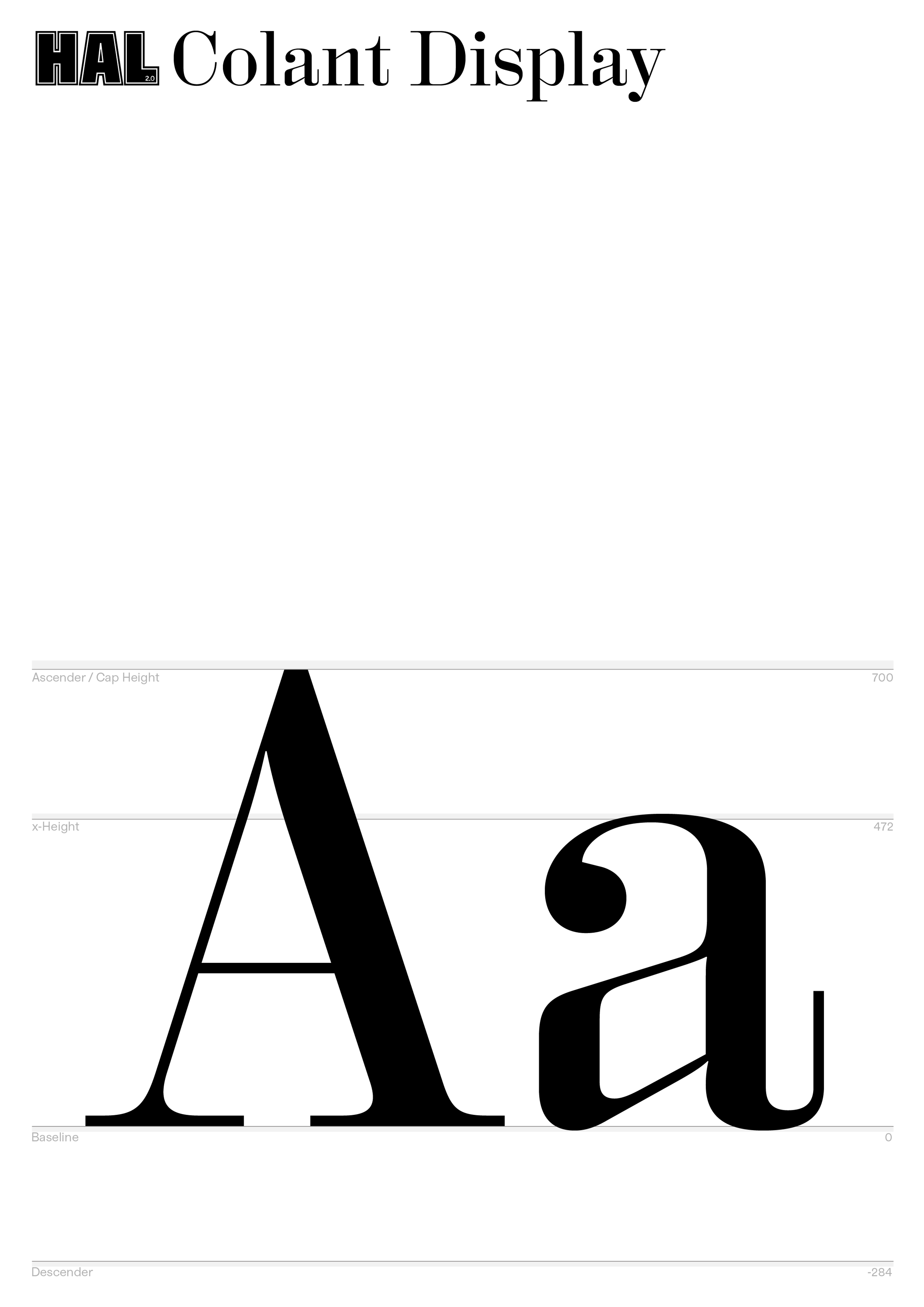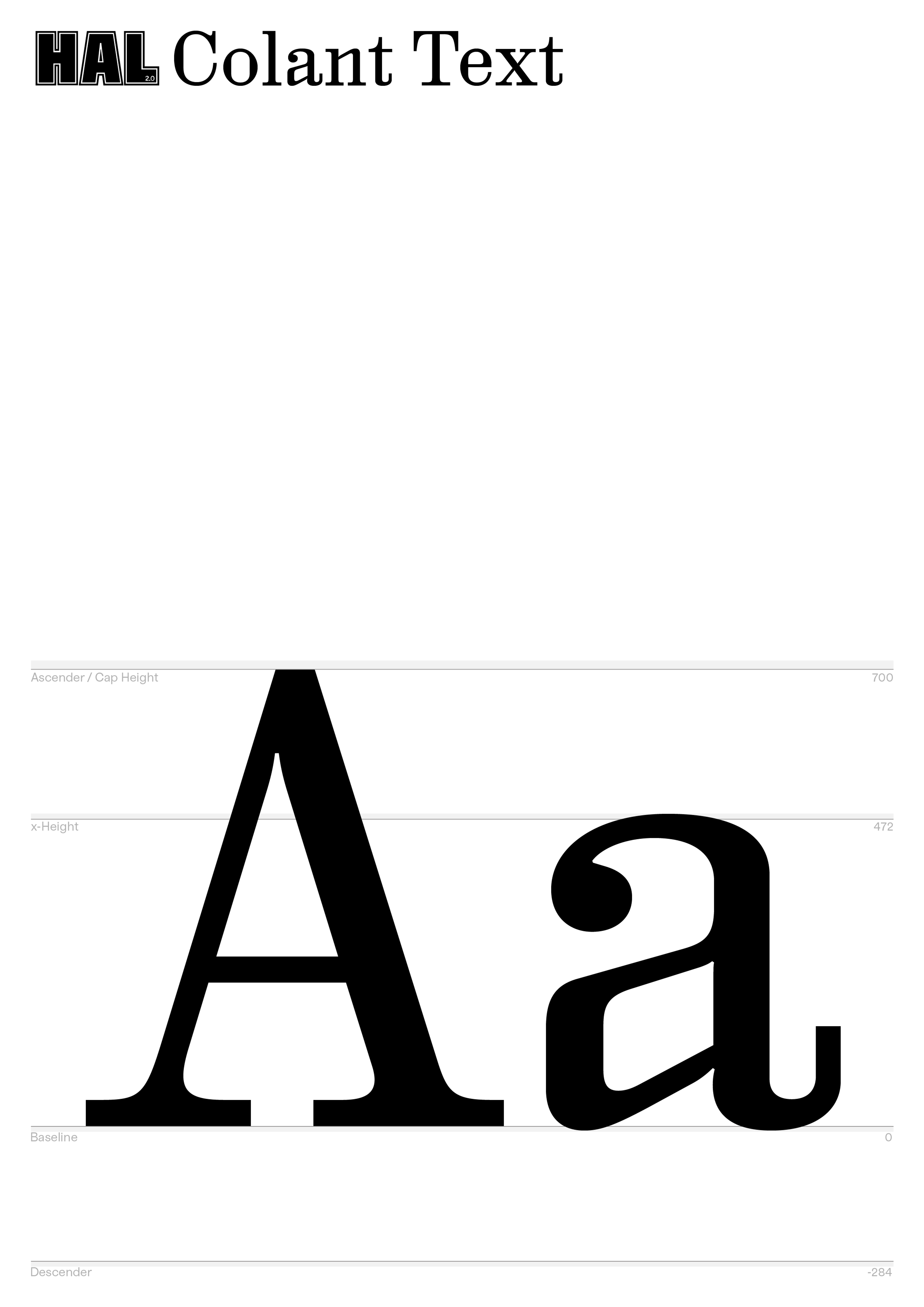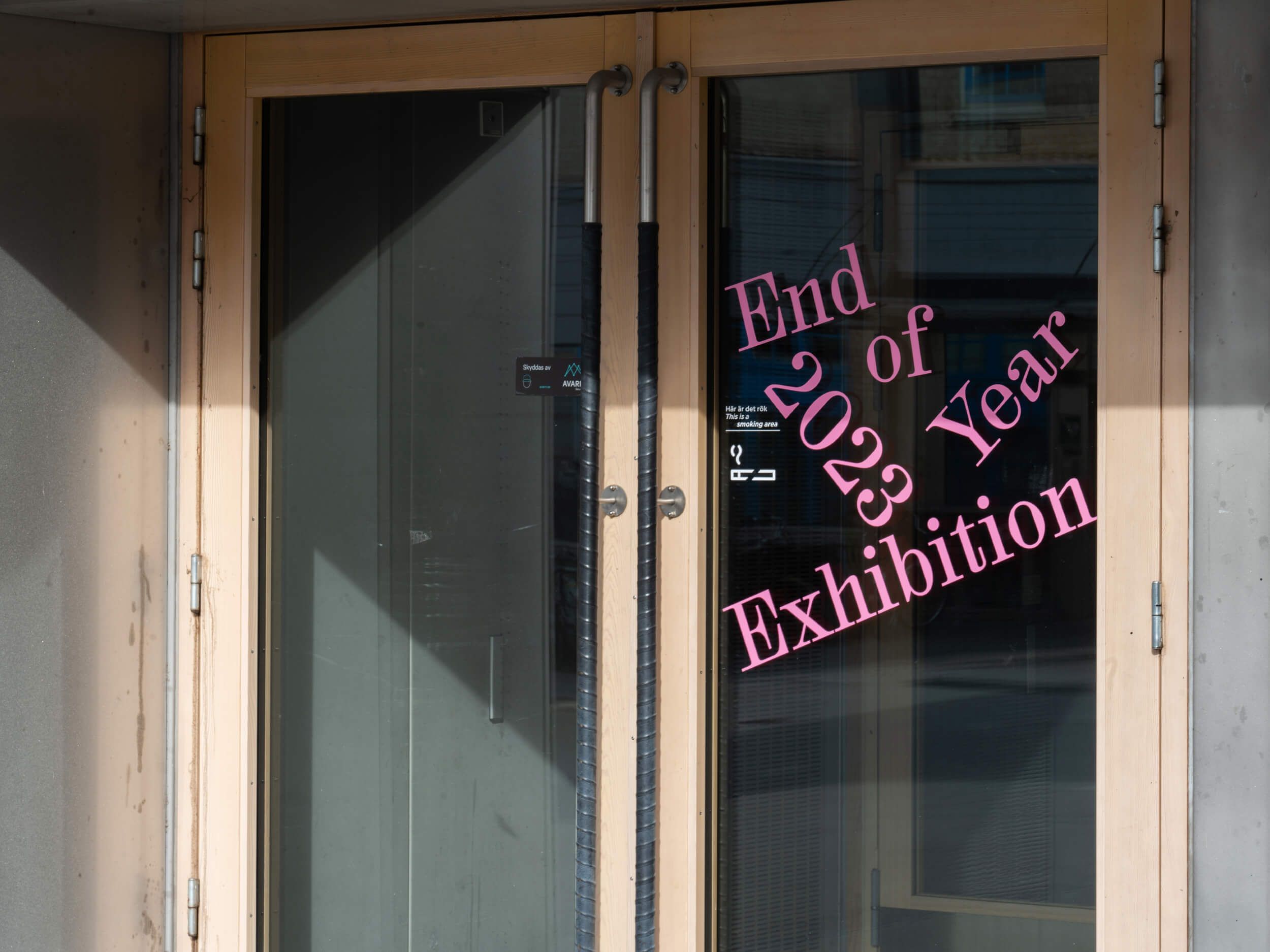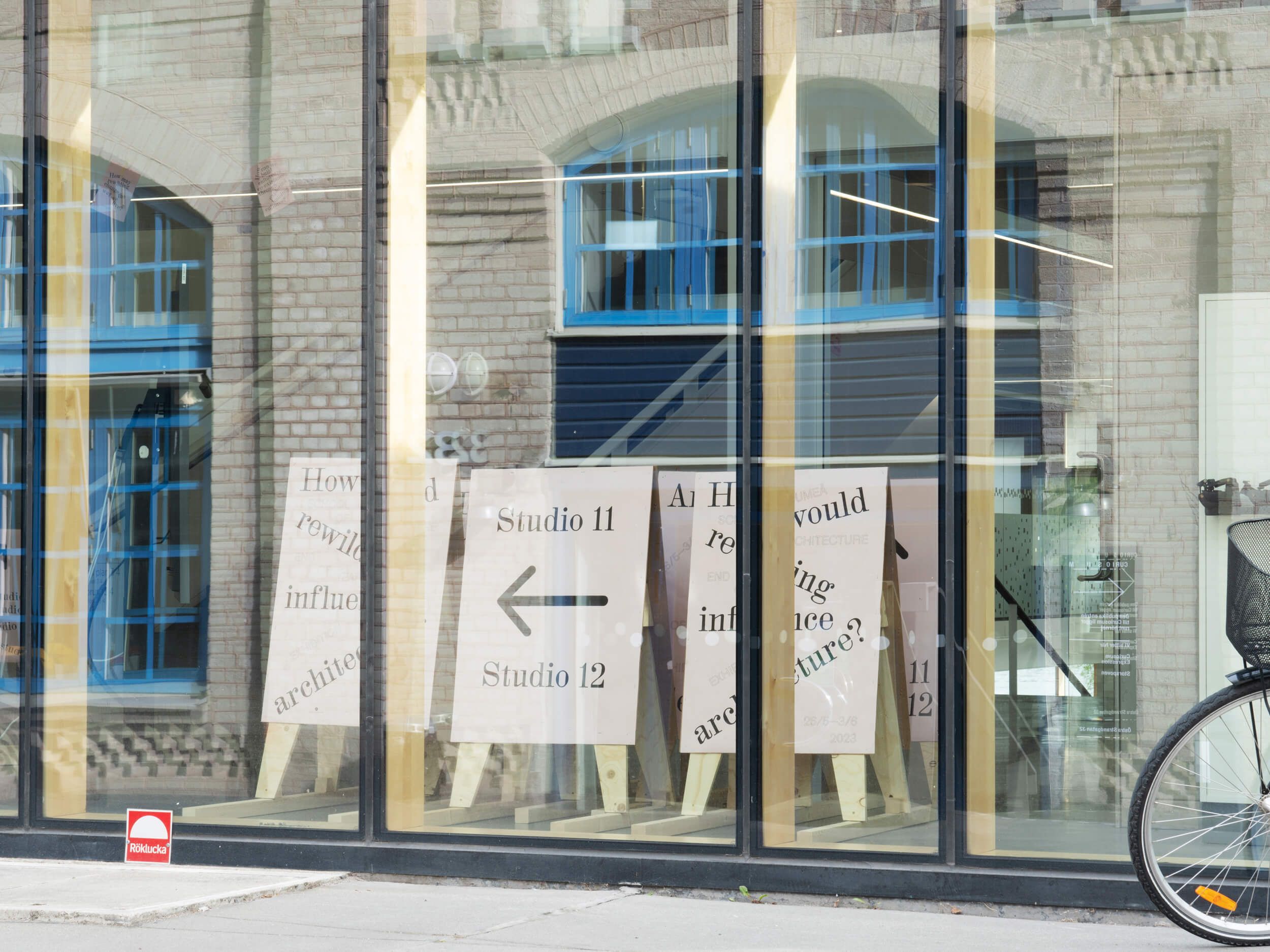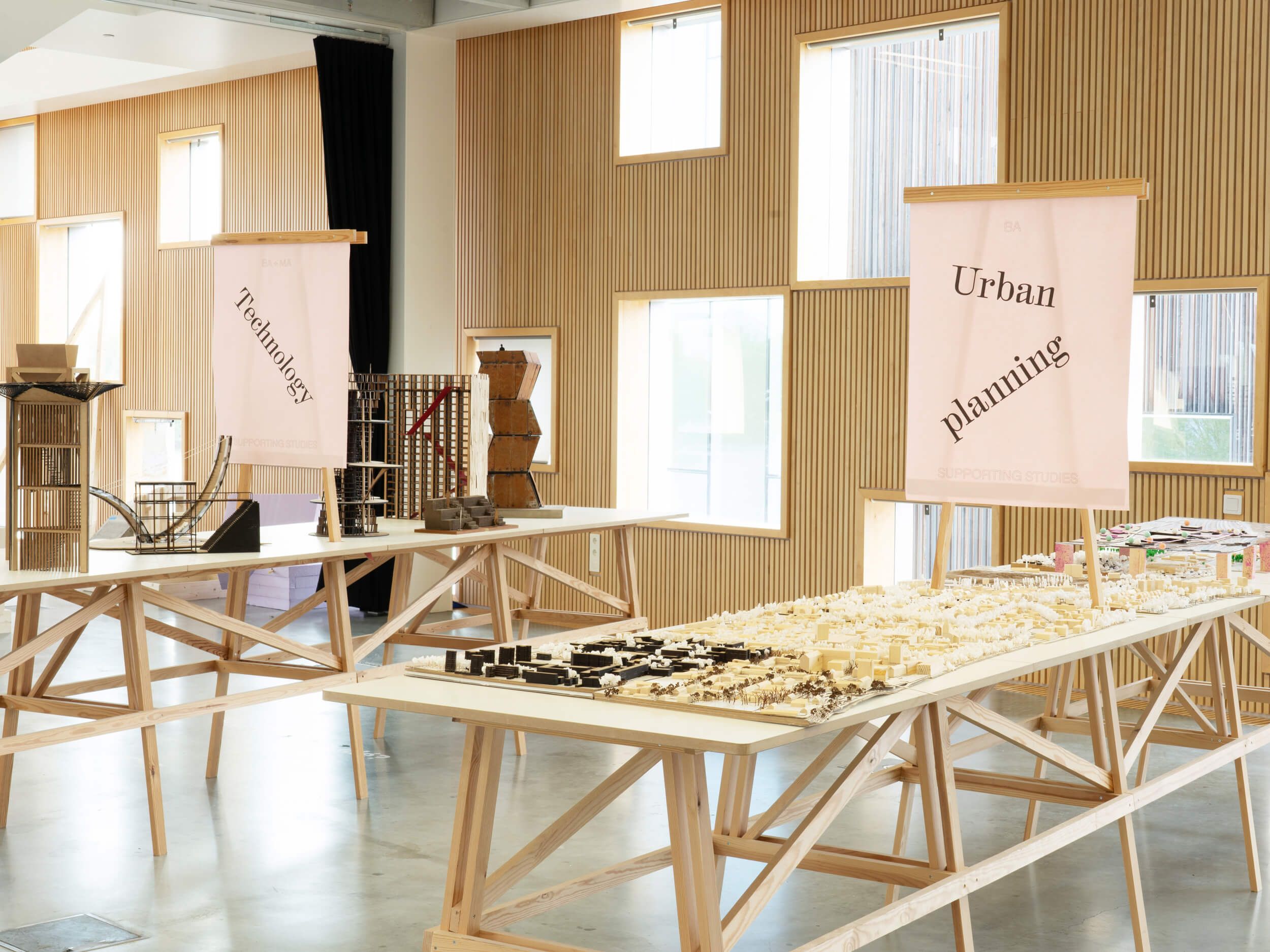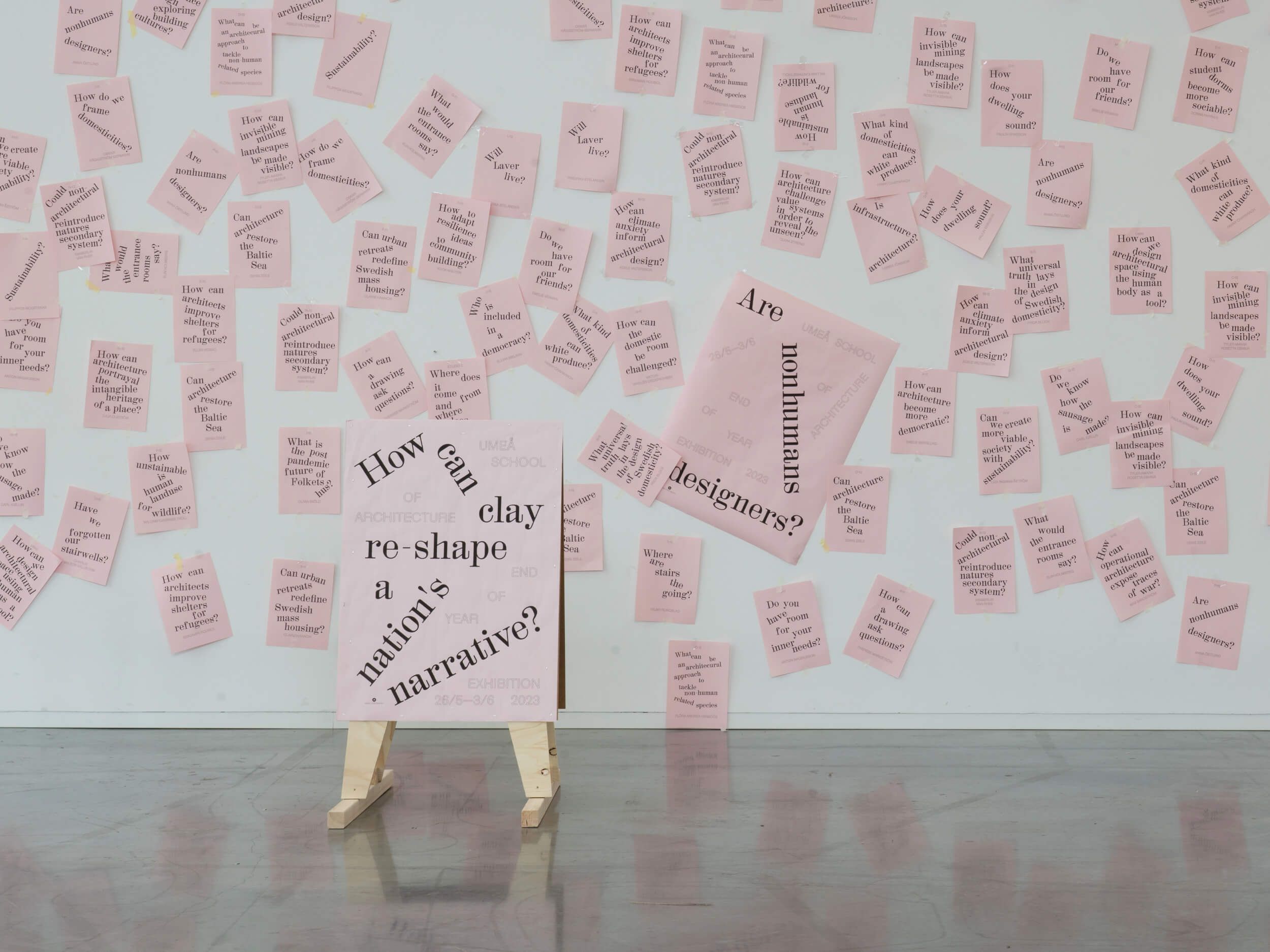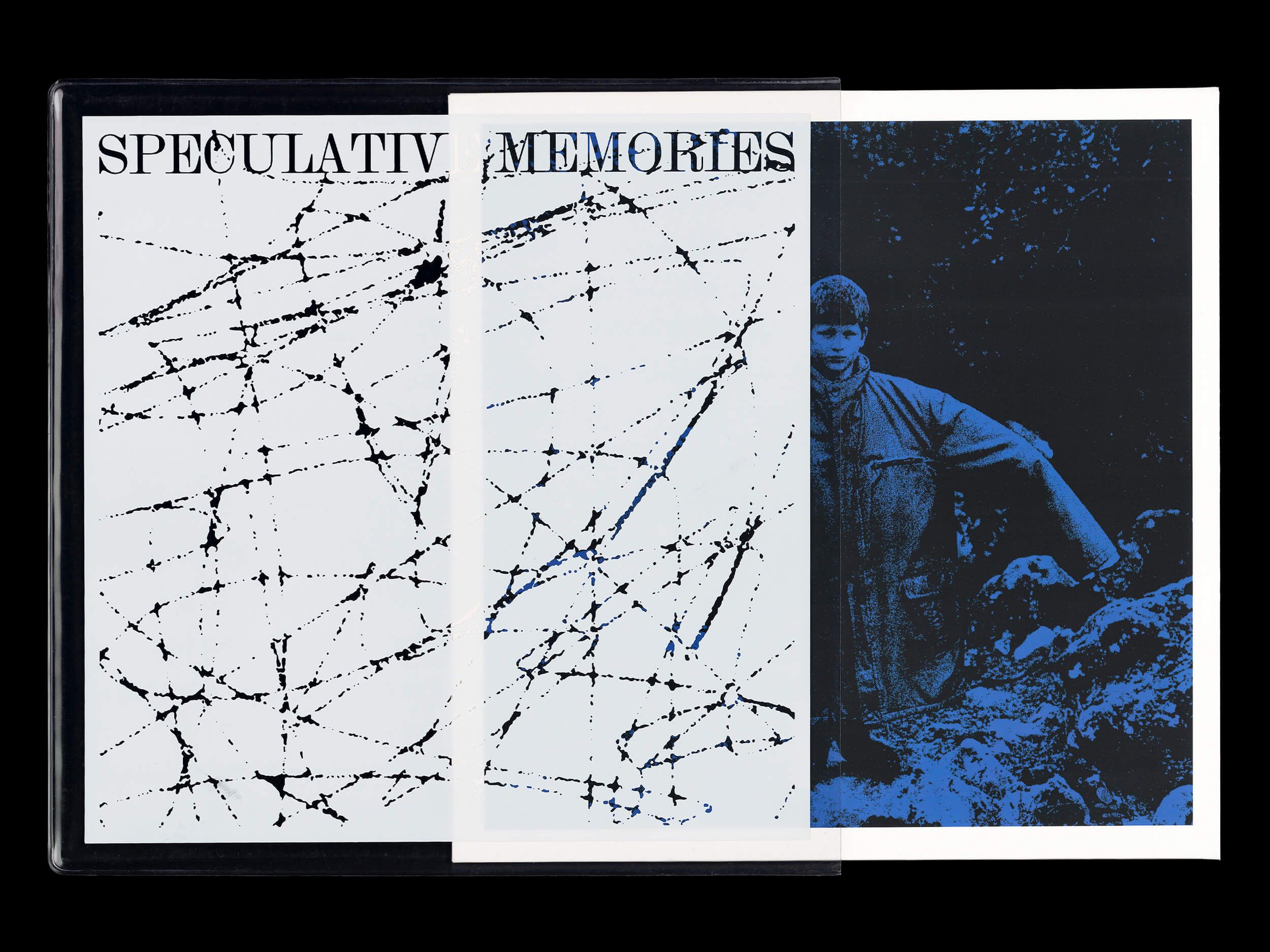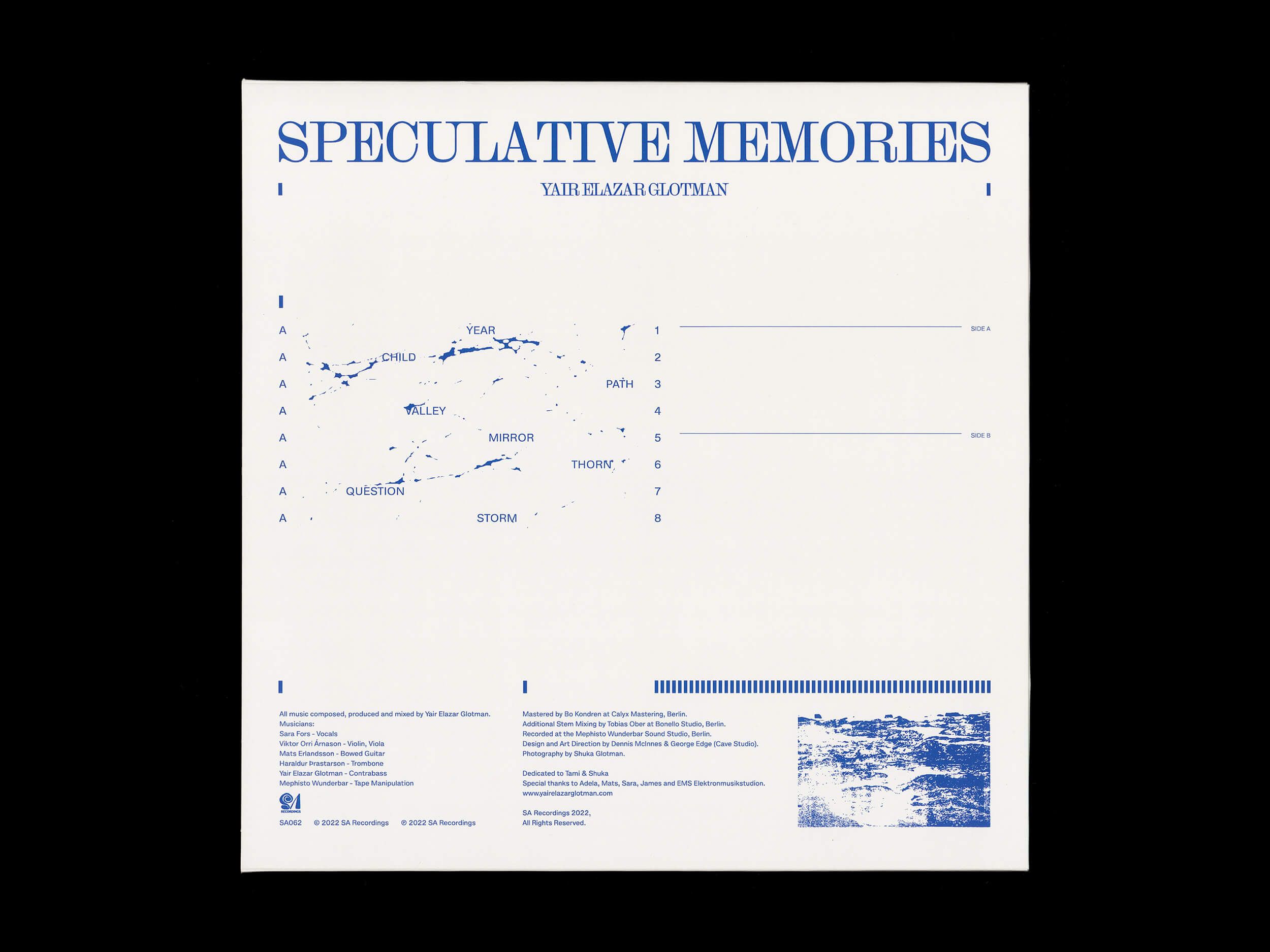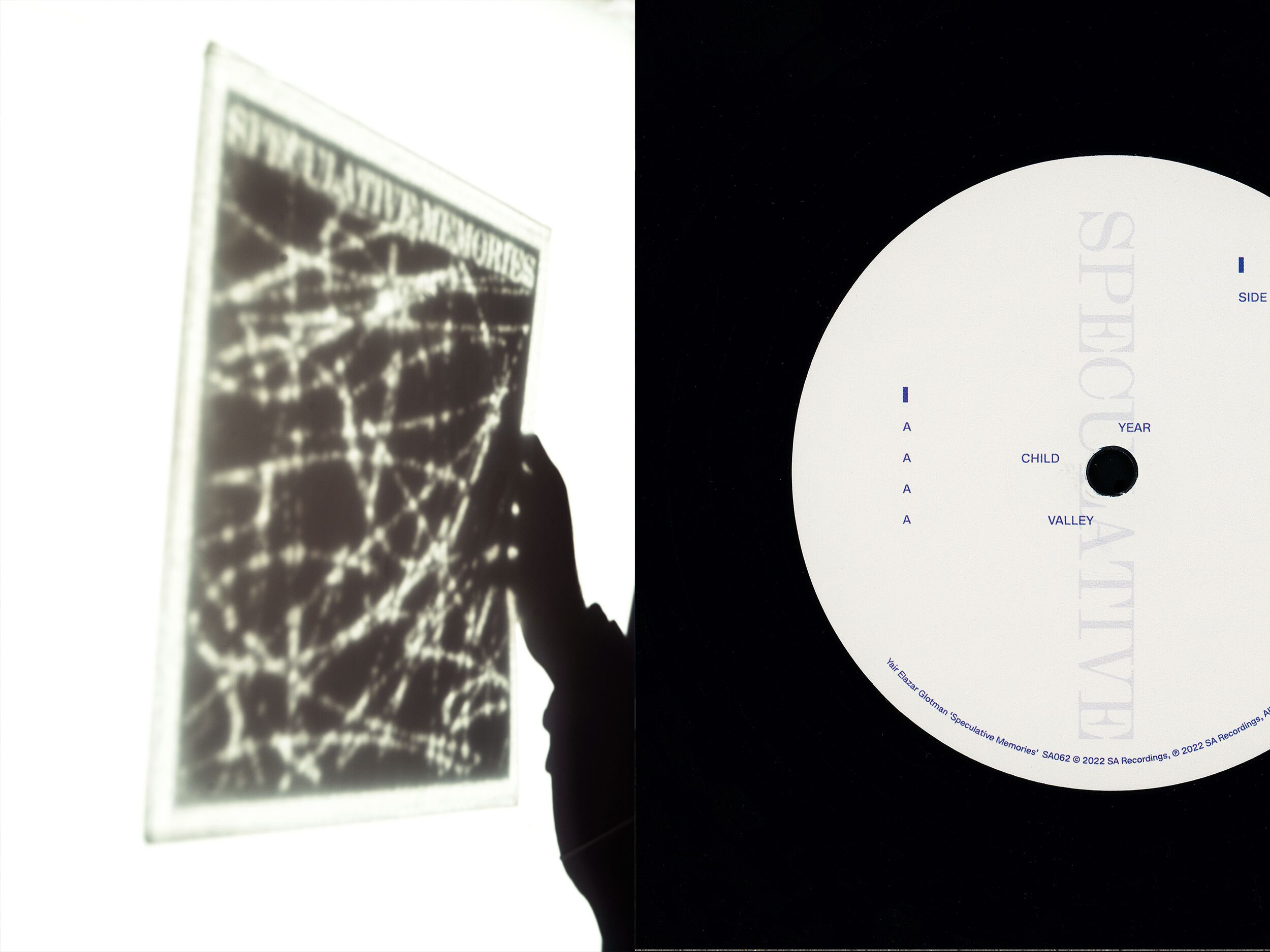
Colant Display
Ligatures
HAL Colant is based on Columbia Antiqua, a Scotch/Modern-style serif typeface, featuring distinct angular details; originally produced by the Bauer’sche Giesserei (Frankfurt am Main) on the occasion of the 1893 World Exposition in Chicago, Illinois. Colant Display, ideal for headlines at larger sizes, is more closely oriented to the original source, while Text Regular and Italic are extended styles with less contrast, optimised for typesetting body texts at smaller sizes.